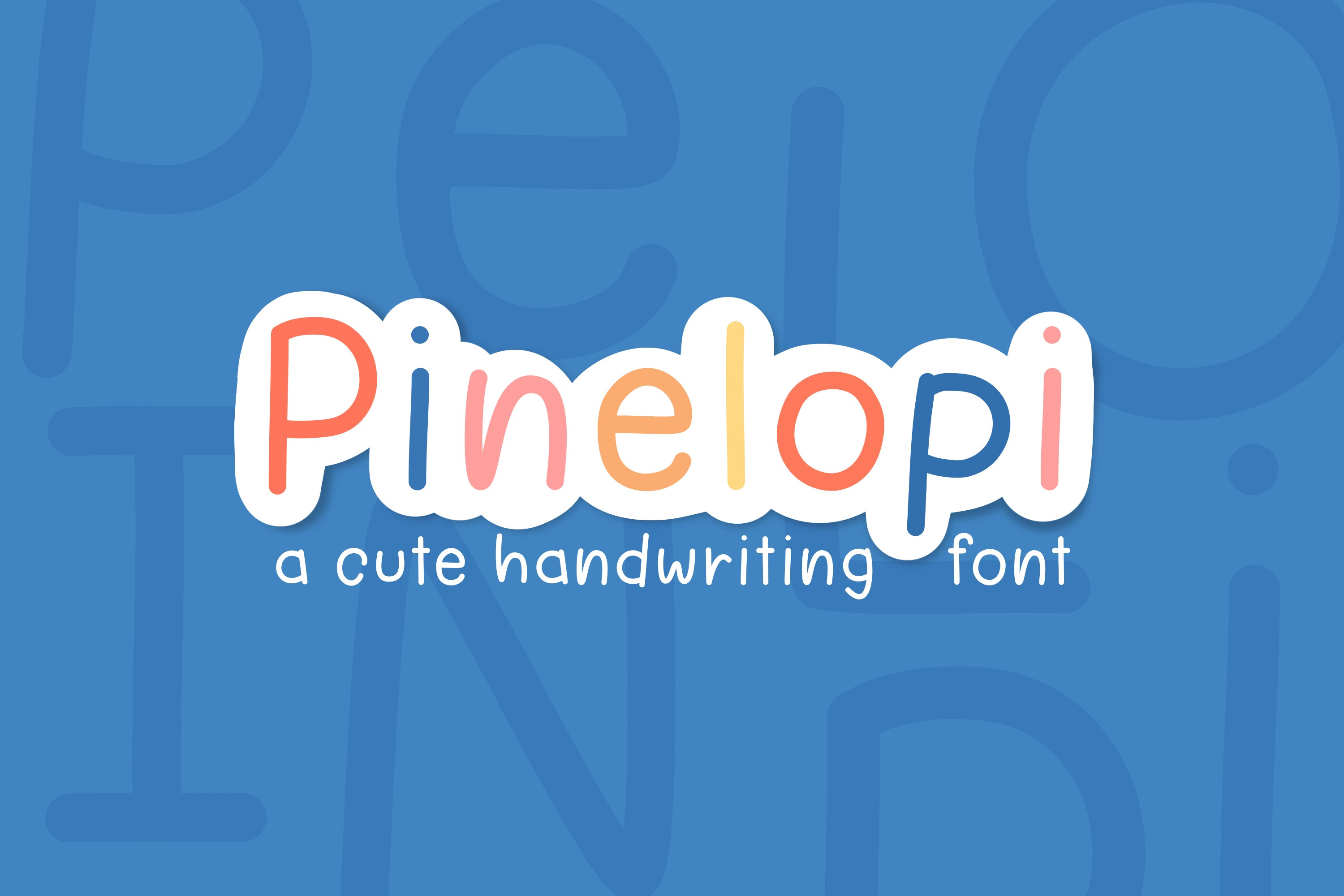
Pinelopi cute handwriting font
Pinelopi, a simple and cute handwritten font. You can use this font in various projects - blog posts, digital planner, invitations, greeting cards, planners, photo albums, decorations and much more. Thank you :)